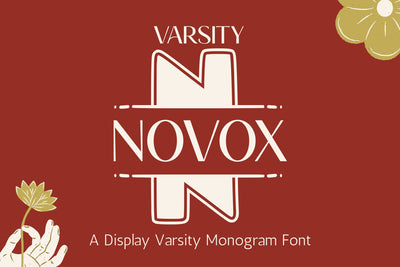
Novox Varsity Monogram
Novox Varsity Monogram – Athletic College Block Font
Novox Varsity Monogram is a bold, structured font that captures the classic collegiate spirit with a modern monogram twist. Designed for sports-themed designs, school merchandise, team uniforms, and retro varsity aesthetics, this font delivers strong visual impact with clean, angular lines and all-caps versatility. Perfect for those who want to add a bold identity to custom initials or school-related branding.
Bold Varsity Monogram Style: Inspired by traditional athletic lettering, every character is crafted for sharpness and clarity.
Great for Team & School Designs: Perfect for monograms on jerseys, banners, letterman jackets, and sports fan gear.
Crisp & Confident Look: Gives a tough, collegiate vibe ideal for both print and digital applications.
All-Caps Typeface: Designed for standout initials, logos, and custom letter pairings.